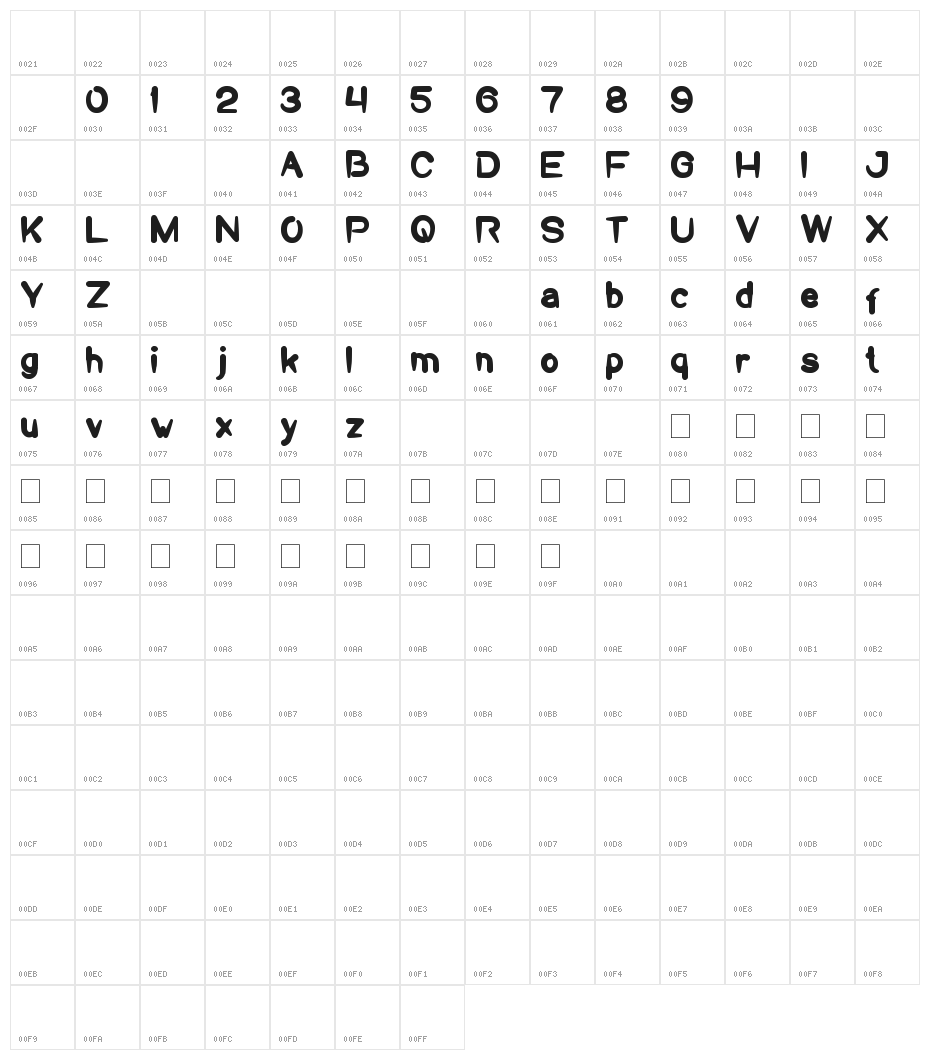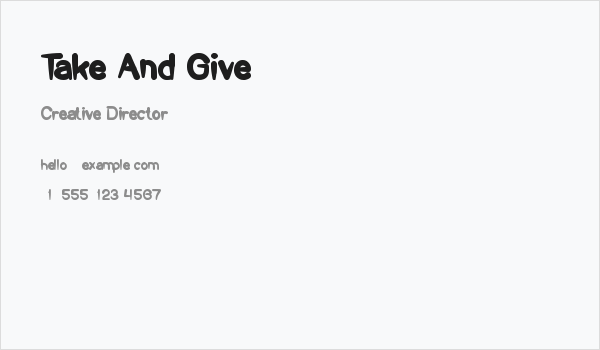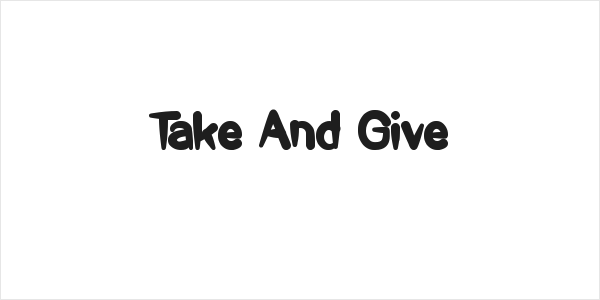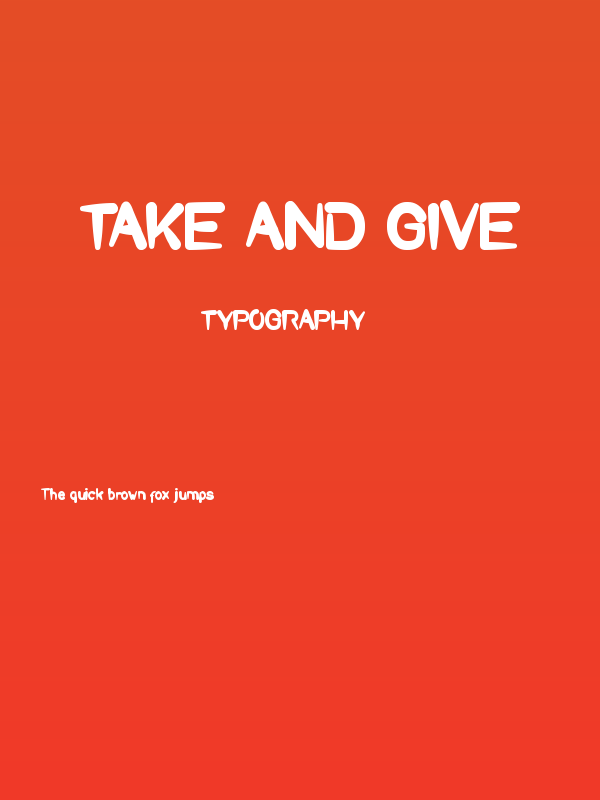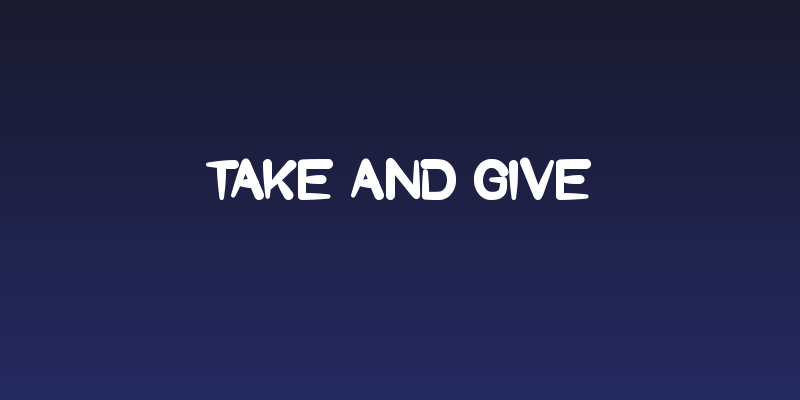
Take And Give Font
Take And Give Description
This playful and bold font features rounded, thick strokes that give it a friendly and approachable appearance. The characters are slightly condensed, with a consistent stroke width that maintains a uniform look across both uppercase and lowercase letters. The numbers and special characters follow the same style, ensuring cohesion throughout. Its unique, bubbly design makes it stand out, while the smooth curves and lack of sharp edges contribute to its informal and relaxed vibe. This font is ideal for projects that require a touch of whimsy and creativity, such as children's books, playful branding, or casual invitations.
| Proposed Projects | Children's books, playful branding, casual invitations, creative posters. |